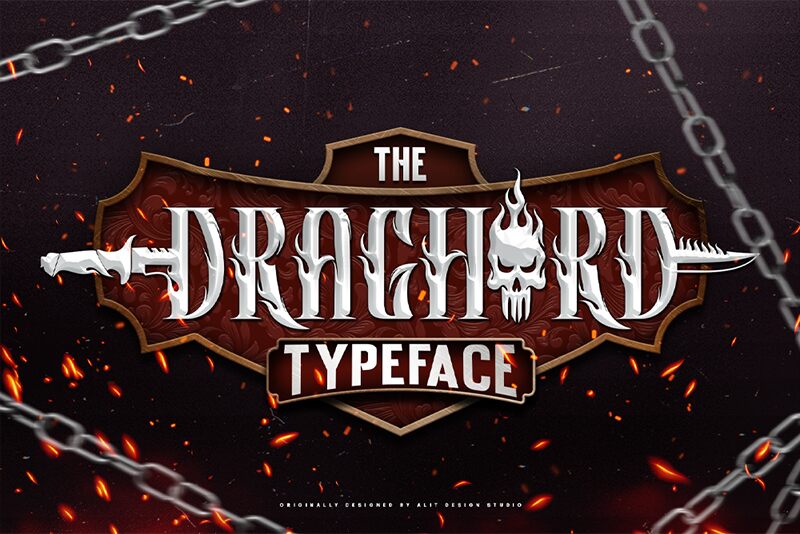
Draghord font
Draghord
Alit Design
Introducing Draghord, a bold and dynamic typeface that embodies the essence of superheroic power and adventure. This free font offers a visual journey into the realm of fire, swords, skulls, and wings, capturing the spirit of mighty heroes and formidable villains alike.